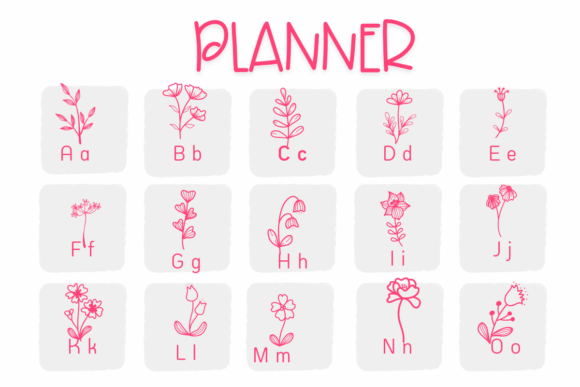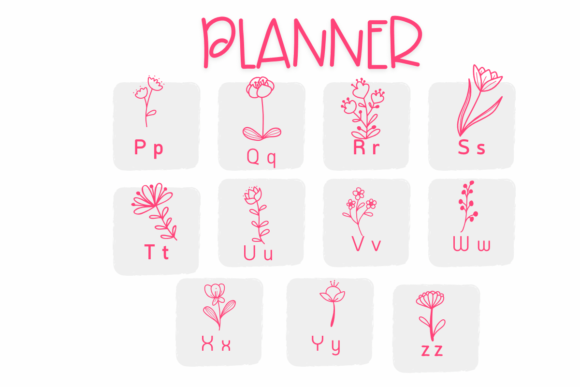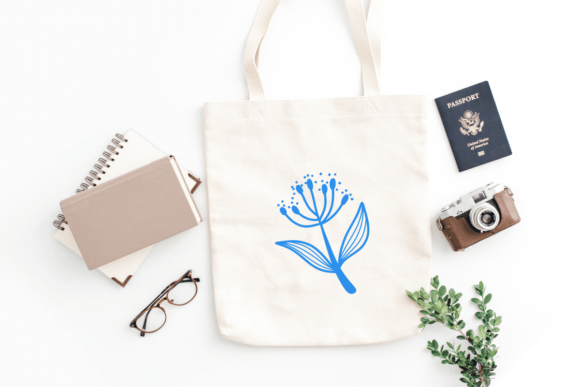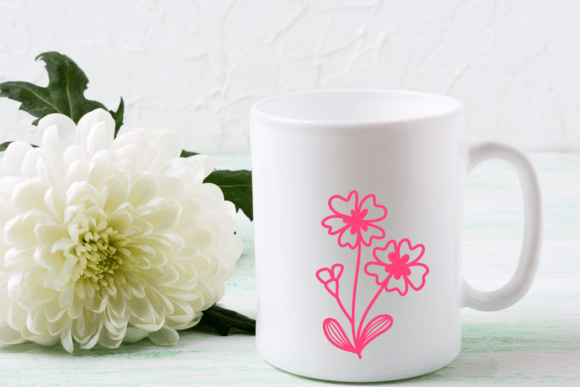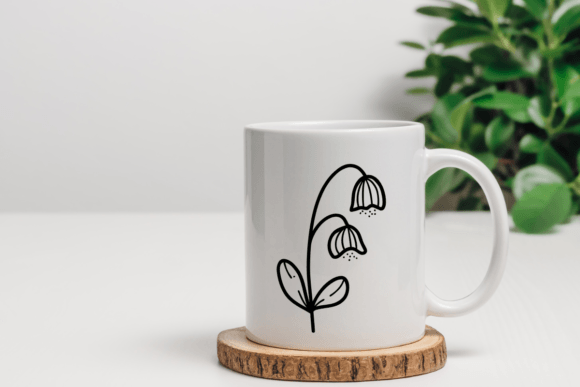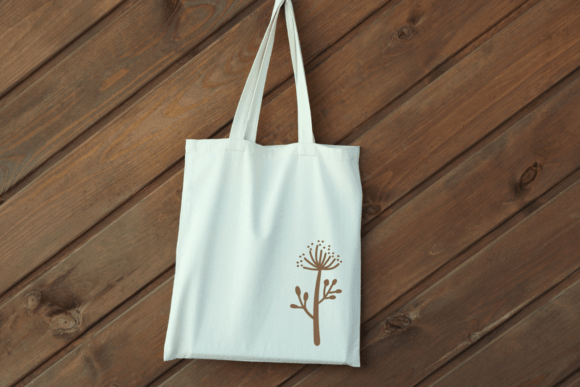
Introduction to Planner Flower Font
Planner Flower is a cute dingbats font with a lovely theme.
This font can enhance your creative projects such as wedding invitations, DIY, crafts, decorations, logos, and many other creative ideas .
Key Features of Planner Flower Font
Why Choose Planner Flower Font?
Planner Flower Font offers exceptional quality and versatility, making it a valuable addition to your design toolkit. Whether you’re creating for personal projects or commercial use, Planner Flower Font delivers professional results.